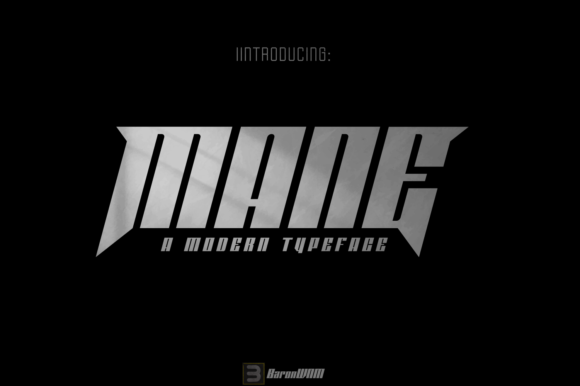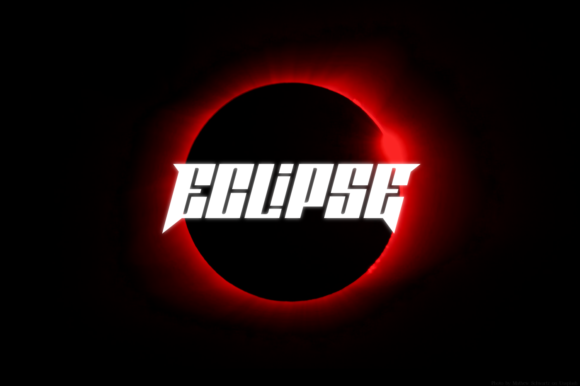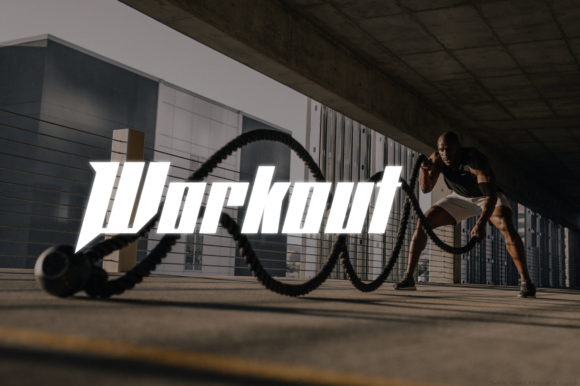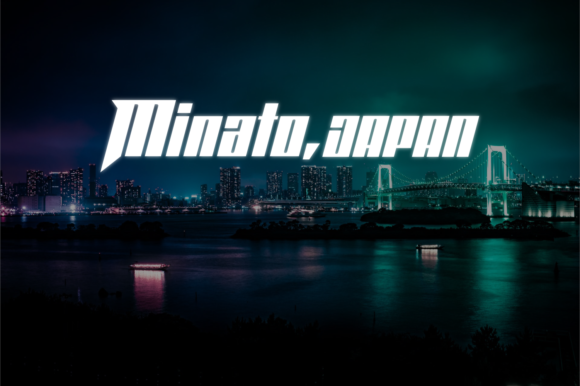
Mane Font: A Bold Display Font for Sport Logos & Modern Typography
About the Mane Font
Discover the charm of Mane Font. This font is a perfect blend of modern aesthetics and classic appeal. Mane is a modern and techno looking display font. It is the perfect font for any sport or racing-themed project, such as logos, posters, games, product designs and much more.
Mane excels as a headline font for projects requiring a bold, modern aesthetic. Its strong geometric forms make it ideal for posters, branding applications needing a high-impact statement, and game interfaces where clear readability at larger sizes is paramount. Avoid using Mane for body text or long-form content; its condensed forms and sharp angles hinder comfortable reading at smaller sizes.
Consider pairing Mane with a clean sans-serif like Futura for a balanced, high-tech feel, or a more humanist sans-serif such as Open Sans for improved readability in supporting text. For a contrasting yet harmonious pairing, a subtle serif like Garamond could provide a touch of classic elegance.
Mane’s core personality is assertive and technologically driven, making it a powerful choice for brands projecting speed, innovation, and dynamism. It’s particularly well-suited to sports, automotive, and technology-related projects.